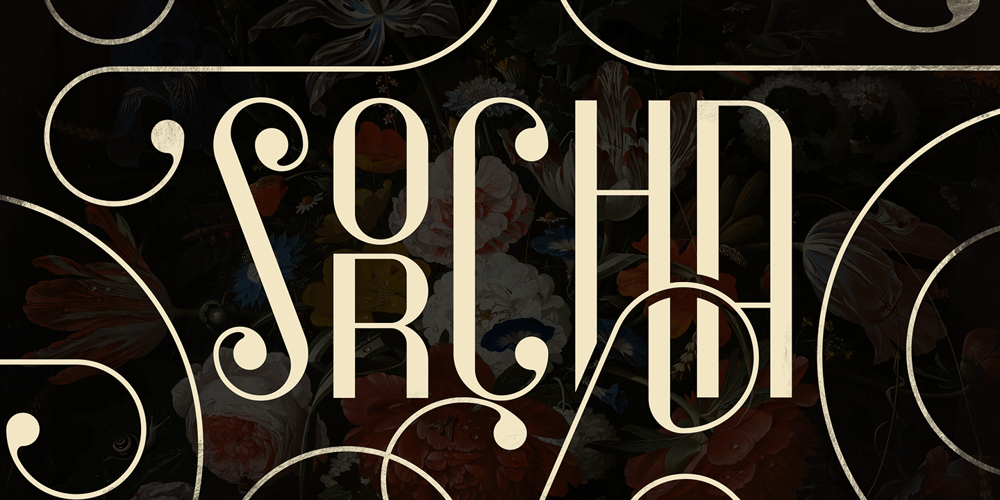
Sorcha Font Family was designed by Vladimir Fedotov, Plamen Petrov and published by VP Creative Shop. Sorcha contains 2 styles and family package options. Introducing Sorcha Display font + SwashesSorcha is bold, vintage font loaded with ligature glyphs, alternates, swashes and multilingual support to enchant your next project. Very versatile fonts that works great in large and small sizes.Sorcha is perfect for branding projects, home-ware designs, product packaging, magazine headers – or simply as a stylish text overlay to any background image. Uppercase, numeral, punctuation & Symbol ligature glyphs alternates swashes Multilingual support How to access alternate glyphs?To access alternate glyphs in Adobe InDesign or Illustrator, choose Window Type & Tables GlyphsIn Photoshop, choose Window Glyphs. In the panel that opens, click the Show menu and choose Alternates for Selection. Double-click an alternate’s thumbnail to swap them out.Feel free to contact me if you have any questions!Mock ups and backgrounds used are not included.Thank you! Enjoy!